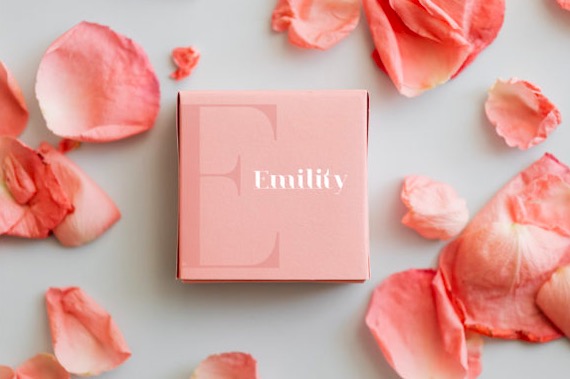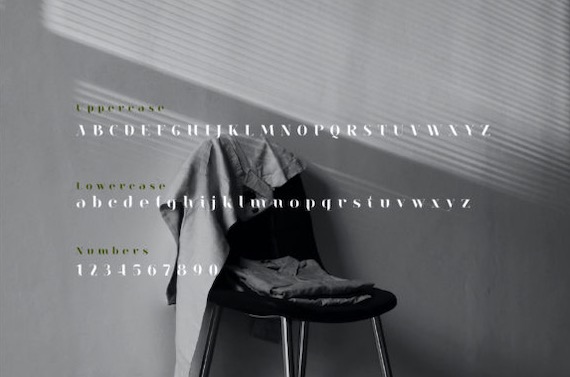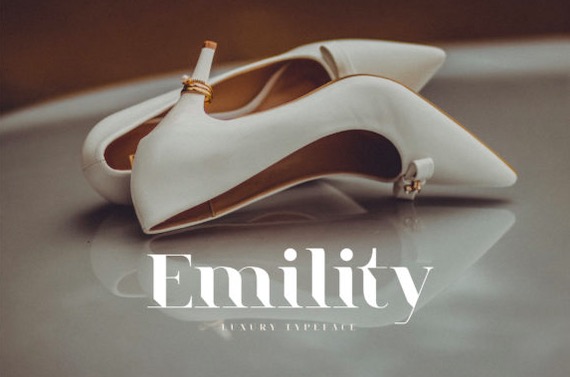
Emility serif font is an elegant modern basic typeface that was created and shared by Geengraphy. Use it to bring your projects to the highest level, be it branding, headings, wedding, digital, movies, invitations, signatures, logos, labels, and much more!
Emility Serif Font
Designer, Publisher: Geengraphy